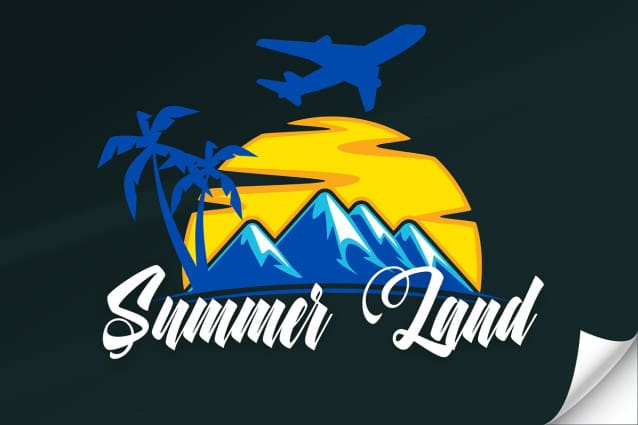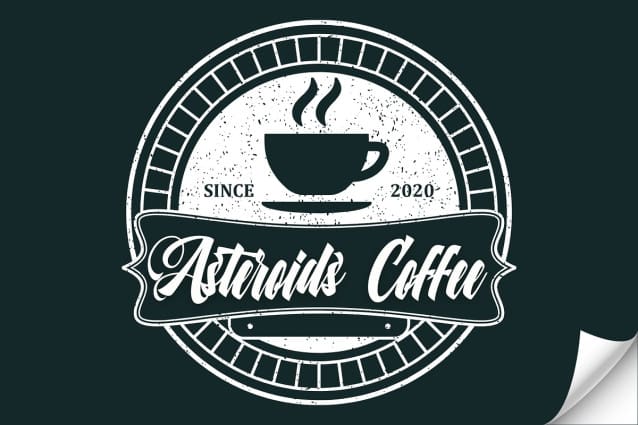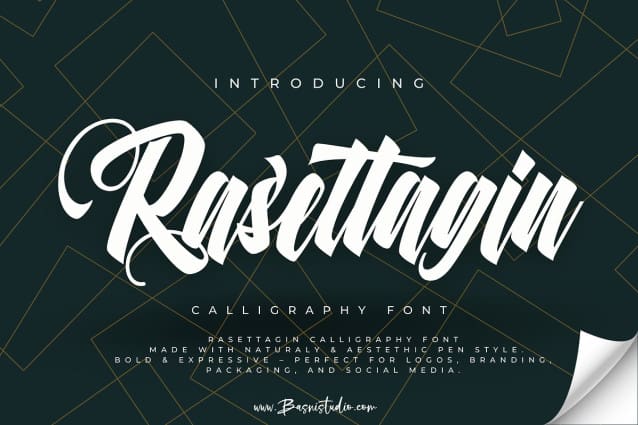
Rasettagin Font
Rasettagin Font, a Handcrafted Brush Calligraphy font designed for brands that demand attention. Transform your brand’s identity with the perfect blend of artistry and attitude.
Authentic Brush Calligraphy Style – Every stroke exudes personality and fluid motion.
Bold & Expressive – Perfect for logos, branding, packaging, and social media.
Natural Brush Texture – A raw, organic feel that adds character and uniqueness.
Make your mark with a brush calligraphy font that speaks with confidence. Create. Inspire. Stand out.